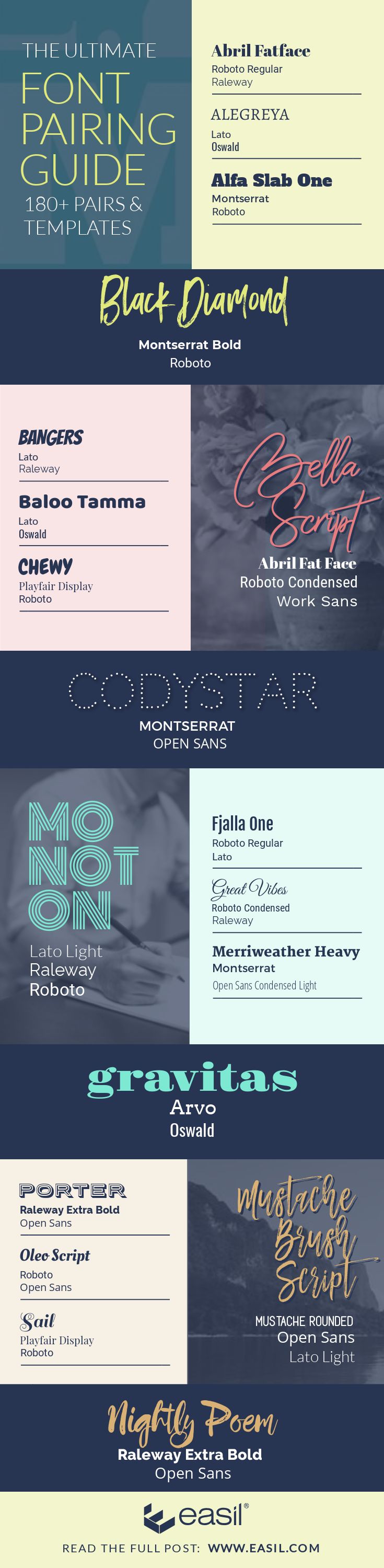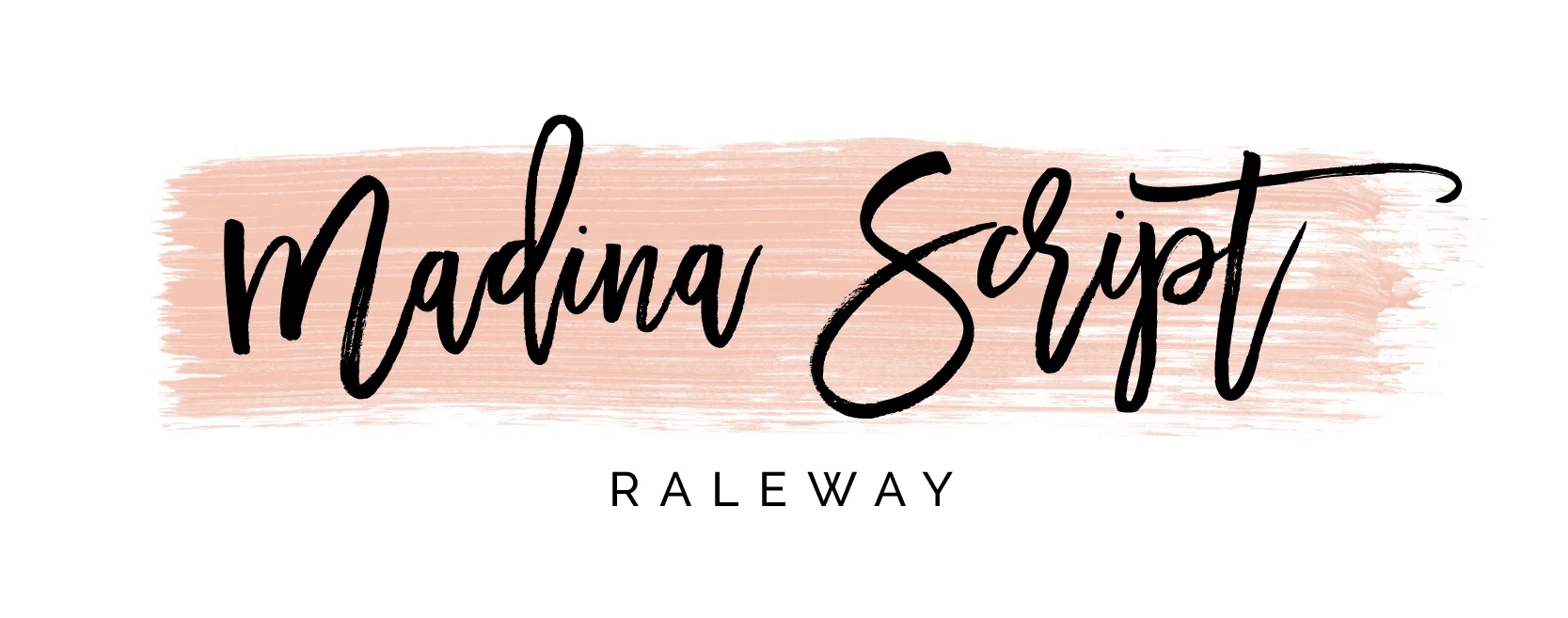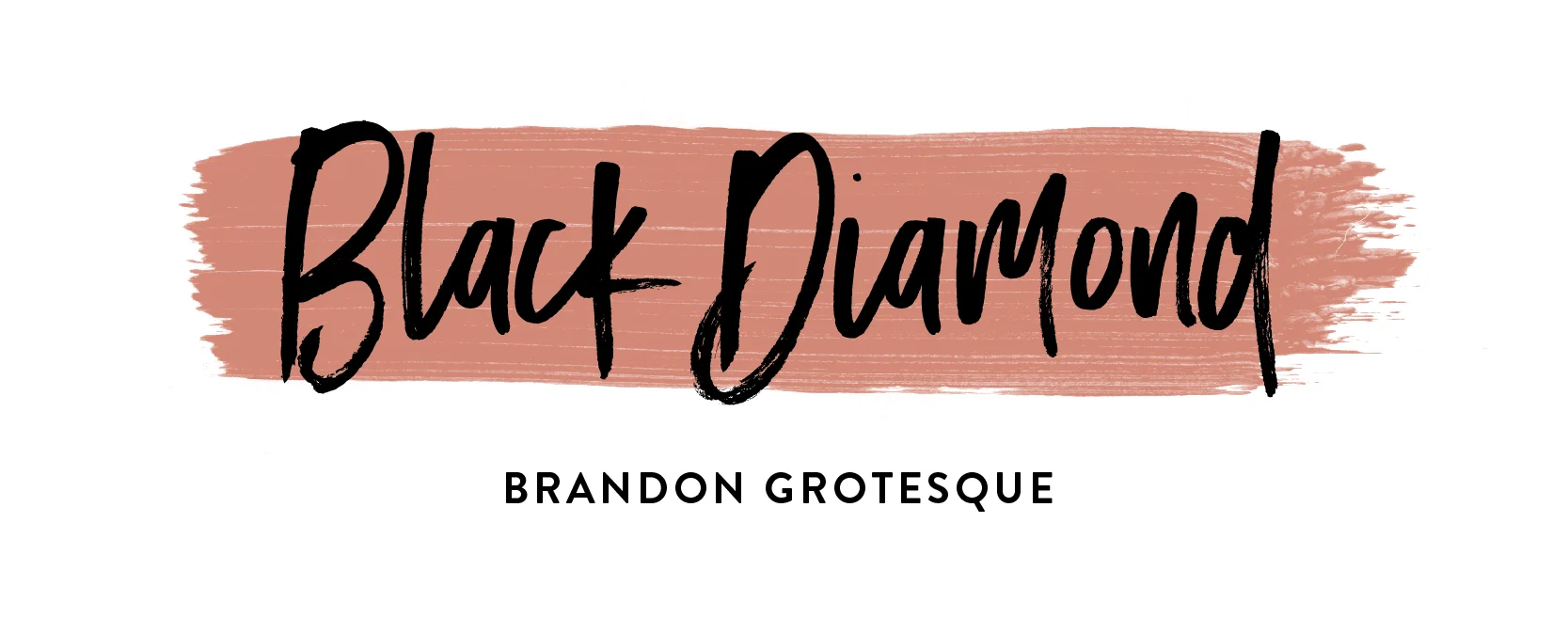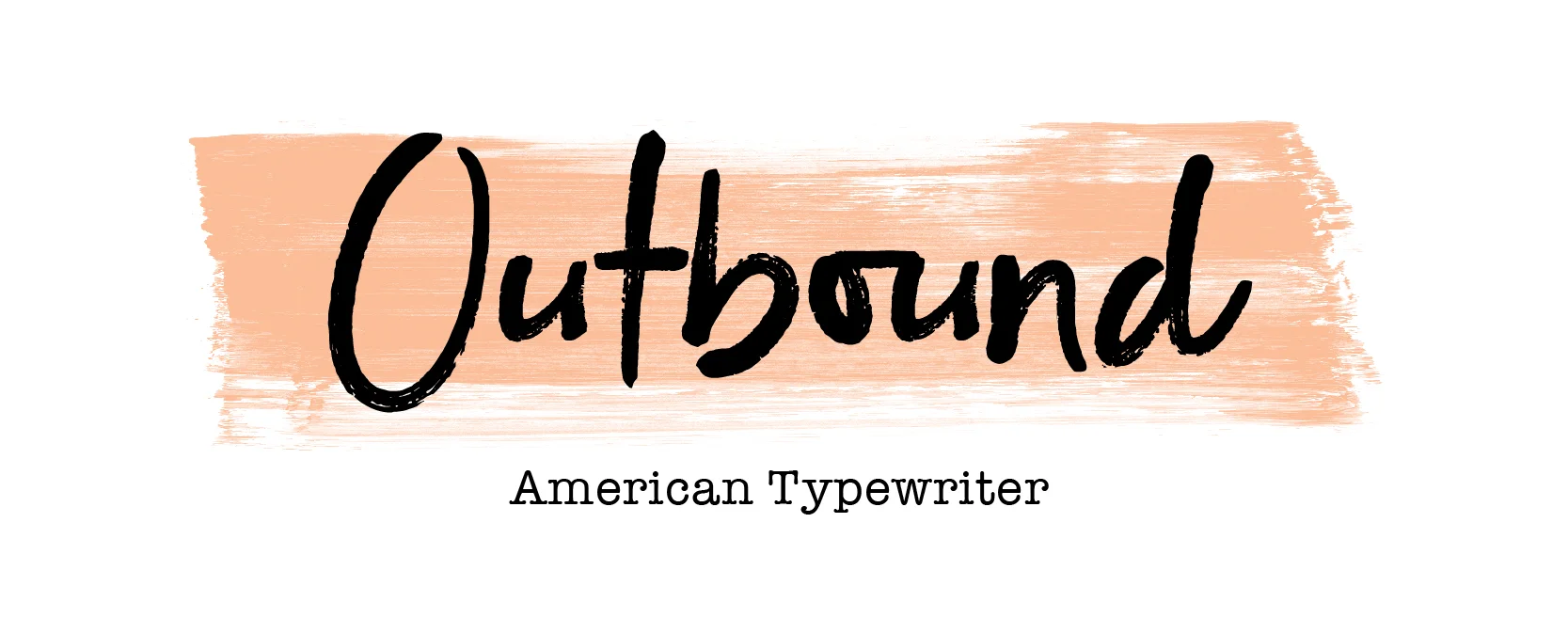
Free Brush Script Font Pairing Free Typography Fonts
All Free PSD Mockups - Download Free SVG Cut FilesIt contrasts nicely against the bold and more basic style of open sans bold and open sans light. The sibling font to mustache brush script this elegant version should be your first choice for pairing with the script. Work sans and roboto light.
brush script font pairing
Pairing script fonts with complimentary typefaces can be tricky.
Brush script font pairing. The sidekick is the plain font you pair it with. Featuring slightly rough edges its perfect for informal graphic styles. Brush script in use. This heavy informal script looks as though it was written with a brush because its lowercase letters join together.
Script fonts brush script condensed fonts compact clear abang typeface font sans serif decorative fonts vintage unique. Lets face it brush fonts are totally in right now. Here are just some qualities to look for. Thats a tall order because some have letters that dont match up properly with each other have uneven spacing in between letters or have characters that are downright unreadable.
Designed by robert e. Font pairing is putting together different typefaces for use in one design project. Browse by alphabetical listing by style by author or by popularity. Take a look at any font resource site and youll see them categorized as blackletter monospace script slab serif etc.
While the term pair is used font pairing can refer to using any number of fonts in the same. Fonts of different styles will often contrast. One more bonus tip for using handwritten script fonts. Use the uppercase letters primarily as initials although you might find it interesting to use all capitals of this typeface for some words.
In this article overview. 3 pair handwritten script fonts with plain fonts. What is font pairing. 2 minutes to read.
Yellowtail is a fat brush script typeface with a mix of connecting letterforms. Brush script mt font family. Released in 1942 by atf as brush. Keep your hand lettered text to a minimum.
But with that being said it can be super overwhelming to decide on which brush font to choose and what font to pair it with. Also available from joelmaker or test it out on easil by clicking the link below. There are many digitizations of mixed quality in regard to fidelity spacing or language support. Ive put together a list of my top five favorite brush fonts and font pairings for each to help you pick your favorite too.
Atf brush atf collection 2015 includes all the original glyphs and adds four new weights with the medium weight being true to the original. Also known as brush script. First you have to find a beautiful legible script font. Archive of freely downloadable fonts.
Get more tips on font pairing. Script typefaces make for lovely and embellished short headings. Contrast between fonts often lends a winning combination but in what ways can fonts contrast. The star is your gorgeous handwritten font.
Dont make your star compete for attention.